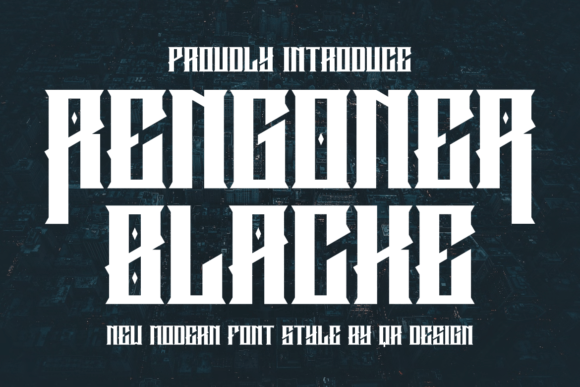
Step into the realm of visual impact and command attention with Rengoner Blacke, the audacious display font that breathes life into your creative expressions. Its bold strokes and striking presence make it the perfect choice for posters, banners, and headlines that demand to be seen and remembered.
Rengoner Blacke is a font of strength and confidence, a true attention-grabber that will elevate your designs to new heights. Its sharp angles and dynamic curves create a visual symphony that captivates the eyes and ignites the imagination. Unleash your creativity and watch as your words transform into captivating masterpieces.
With Rengoner Blacke, you'll discover a world of possibilities. Its versatility extends from bold and edgy designs to elegant and sophisticated creations. Whether you're crafting posters for a music festival, banners for a grand opening, or headlines for a cutting-edge website, Rengoner Blacke will effortlessly elevate your work.
Embrace the power of Rengoner Blacke and unleash your artistic vision. Its intuitive design ensures effortless use, allowing you to focus on your creative flow. Let your imagination run wild as you witness your designs come to life with a font that speaks volumes.
Don't settle for ordinary fonts that blend into the background. Choose Rengoner Blacke and make a statement that resonates with your audience. Its distinctive appearance will leave an indelible mark, ensuring your message is heard loud and clear.